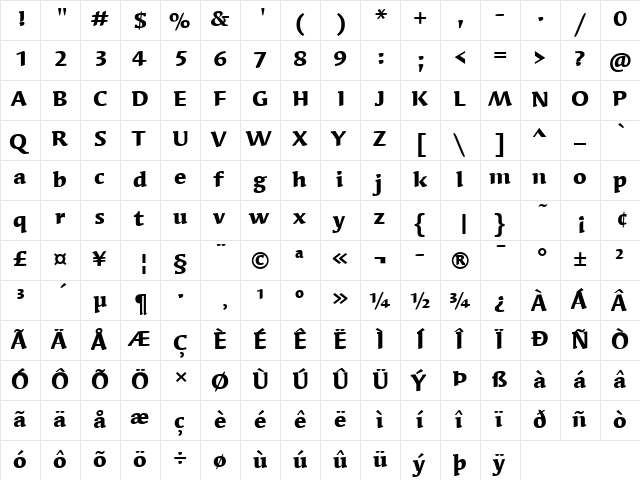
SyndorITC Bold
| Foundry | as an unpublished work by International Typeface Corporation |
Design Context for SyndorITC Typeface
SyndorITC is a composed and adaptable typeface that performs quietly and consistently across a wide range of design contexts. Its bold stroke weight gives it real presence on the page.